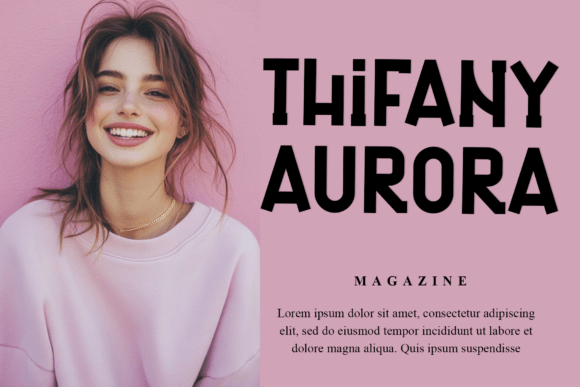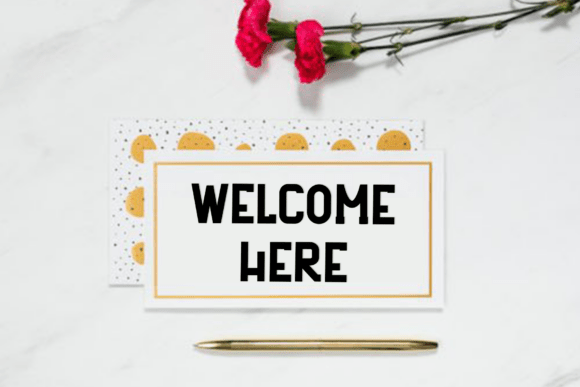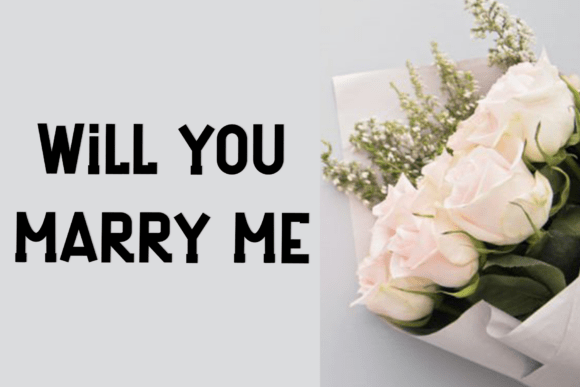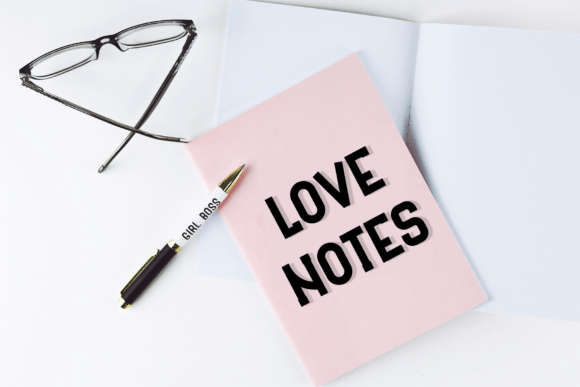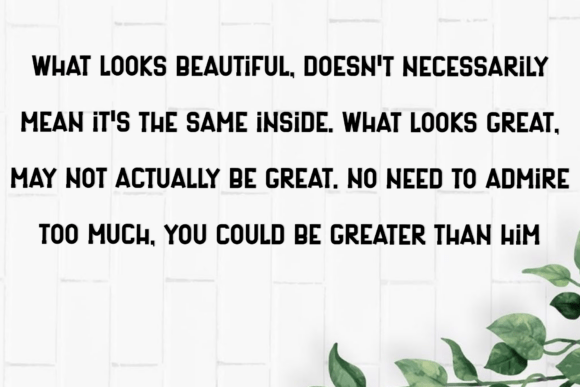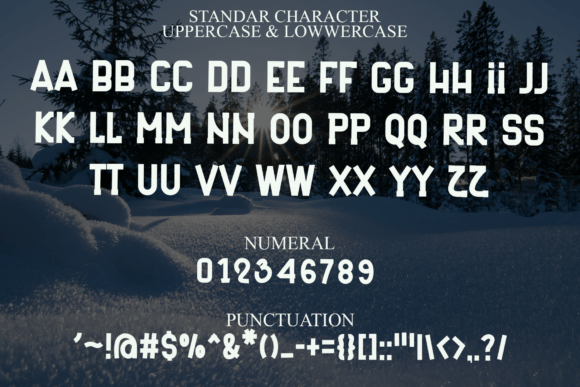
Introducing Blade Desire Font: The Perfect Blend of Casual and Creative
Are you tired of using the same old fonts for your personal projects, invitations, and social media graphics? Look no further than the Blade Desire Font, a casual and creative font that exudes warmth and friendliness. Its unique, hand-drawn aesthetic is sure to add a fun and unique touch to any design, making it perfect for designers and crafters alike.
The Characteristics of Blade Desire Font
The Blade Desire Font is characterized by its round, playful strokes that create a relaxed and approachable feel. This font is perfect for designs that require a friendly and inviting tone, such as:
- Personal projects, such as photo albums and scrapbooking
- Invitations, such as birthday parties and baby showers
- Social media graphics, such as Facebook posts and Instagram stories
What Sets Blade Desire Font Apart
So, what sets the Blade Desire Font apart from other fonts on the market? Here are a few key features:
- Hand-drawn aesthetic: The Blade Desire Font has a charming, hand-drawn aesthetic that adds a unique touch to any design.
- Casual and creative: The Blade Desire Font is perfect for designers and crafters who want to add a casual and creative touch to their designs.
The Blade Desire Font offers a range of benefits for designers and crafters, including:
- Versatility: The Blade Desire Font can be used for a wide range of design projects, from personal projects to commercial designs.
- Unique touch: The font’s hand-drawn aesthetic adds a unique touch to any design, setting it apart from more traditional fonts.
Tips for Using Blade Desire Font
Here are a few tips for using the Blade Desire Font in your designs:
- Pair with other fonts: The Blade Desire Font pairs well with other casual and creative fonts, making it perfect for designs that require a mix of fonts.
- Use for headings and body text: The font is suitable for both headings and body text, making it a versatile addition to any design.
- Experiment with colors: The Blade Desire Font looks great in a range of colors, so don’t be afraid to experiment and find the perfect color for your design.
In conclusion, the Blade Desire Font is a casual and creative font that is perfect for designers and crafters who want to add a unique touch to their designs. Its hand-drawn aesthetic, PUA Encoded glyphs, and ease of use make it a versatile and valuable addition to any design toolkit. Whether you’re working on a personal project or a commercial design, the Blade Desire Font is sure to bring a touch of warmth and friendliness to your designs.